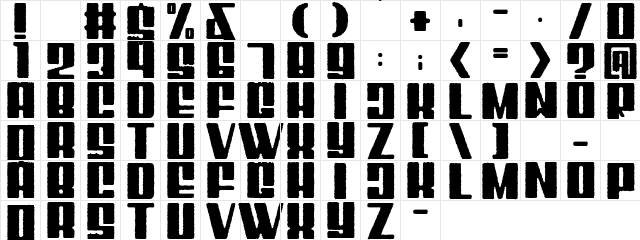
Mixbox Rough Demo Rough
Design Context for Mixbox Rough Demo Typeface
Mixbox Rough Demo trades polish for personality, using distressed and eroded forms to bring grit and attitude to creative work.
A strong fit for alternative music projects, graffiti-adjacent design, and anything that deliberately resists polish.
Pro Tip: Use Mixbox Rough Demo at larger sizes where the texture and irregularity of each letterform can be clearly seen — it loses its character at small sizes.